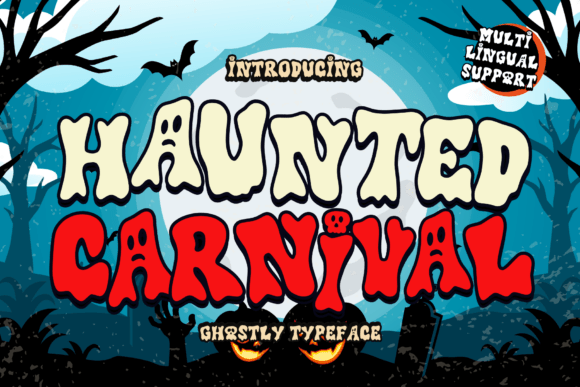
The Spooky Spark that Ignites Your Creativity
Have you ever been brainstorming a Halloween project and suddenly, a shiver runs down your spine as the perfect idea strikes? That’s exactly what happened to designers who discovered the Haunted Carnival Font – a spooky Halloween font that brings to life the chilling world of ghost stories and eerie gothic vibes.
This bewitching font is more than just a design element; it’s a key to unlocking the atmosphere of haunted houses, monsters, and midnight mysteries. With its playful yet creepy curves, it’s the perfect addition to any seasonal design project that needs a touch of darkness and fantasy. Whether you’re creating Halloween party posters, spooky invitations, or horror movie titles, the Haunted Carnival Font adds a unique blend of scary and stylish energy that’s sure to captivate your audience.
Key Features of Haunted Carnival Font
- Unique Characteristics: Features a spooky and eerie atmosphere, with intricate details and textures that evoke the feeling of an abandoned carnival at night.
Haunted Carnival Font Review
At first glance, the Haunted Carnival font has a certain allure to it. The bold and playful style ✨ immediately caught my attention, and I can see how it would be perfect for designing spooky-themed projects or adding a touch of whimsy to a carnival or circus-themed project. The font’s use of distressed textures and bold lettering adds to its overall sense of mystery and wonder.
However, upon closer inspection, I noticed a few limitations ⚠️. The font’s distressed texture can sometimes make the text difficult to read, particularly at smaller sizes. Additionally, the font’s bold style can make it feel a bit overwhelming or busy if used extensively throughout a design. Finally, the font’s limited character set and lack of language support may be a concern for designers working on projects that require a wider range of characters.
Overall, I would give the Haunted Carnival font 3.5 out of 5 stars. While it has some great features and can be a lot of fun to use, its limitations may hold it back from being a truly versatile font.
Pros:
- ✨ Bold and playful style perfect for spooky or whimsical projects
- Distressed textures add to the font’s sense of mystery and wonder
Cons:
- ⚠️ Difficult to read at smaller sizes due to distressed texture
- ⚠️ Can feel overwhelming or busy if used extensively
- ⚠️ Limited character set and lack of language support
For best results, use the Haunted Carnival font in conjunction with bold, bright colors and distressed textures to create a spooky, carnival-like atmosphere.
- Spooky-themed posters and flyers
- Carnival and fair advertisements
- Halloween and horror-themed graphics